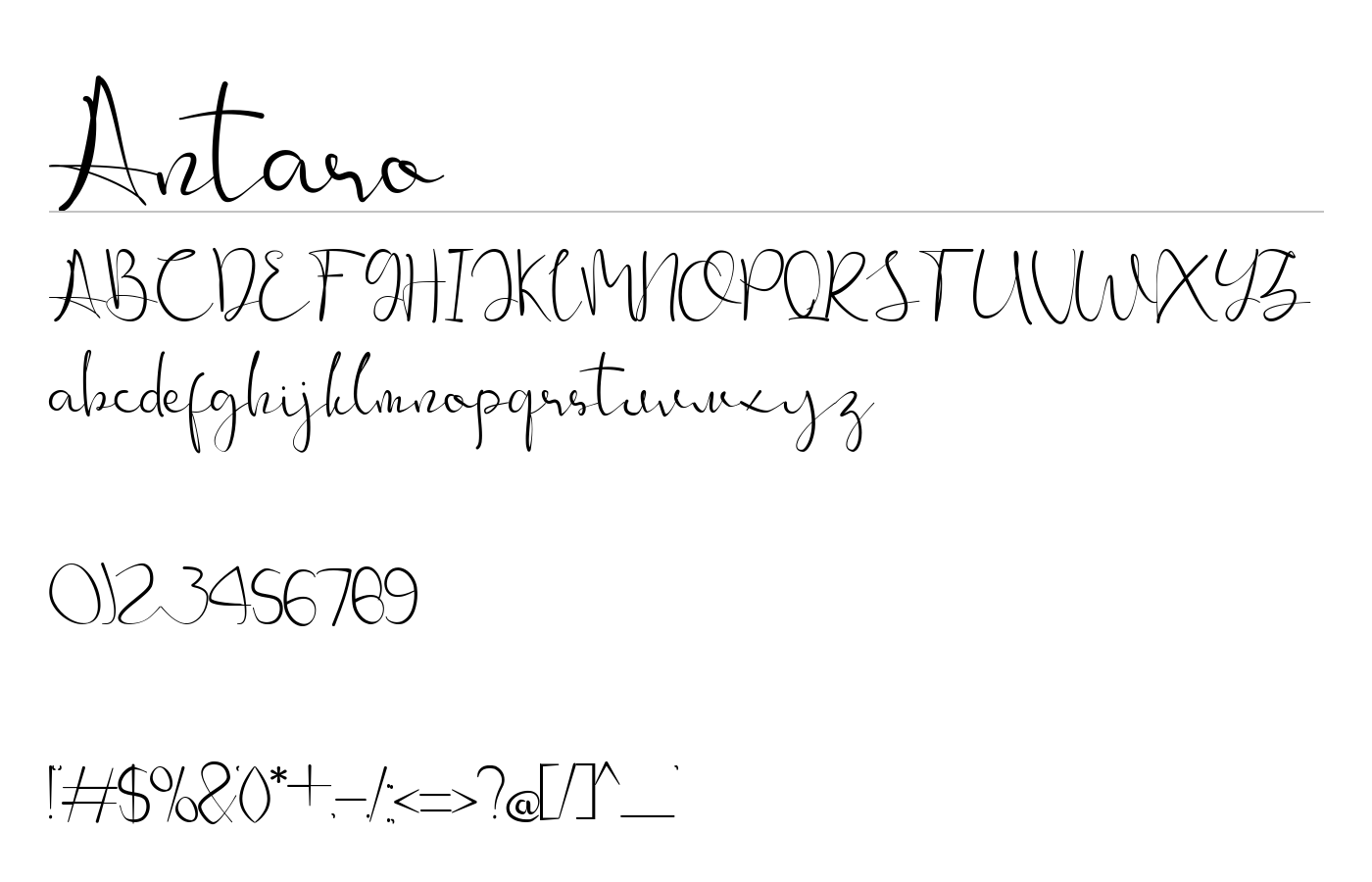
Antaro is a delicate, handwritten script font with a whimsical and elegant character. Its thin strokes and playful letterforms create a light, airy feel, making it perfect for creative projects like invitations, branding, or decorative headlines where a personal, artistic touch is desired. This font shines in settings that seek charm and sophistication with a casual, handcrafted vibe.
Antaro Font
About Antaro Font
| Font family | Antaro Font |
| Designer | Muksal Creative. 2019 |